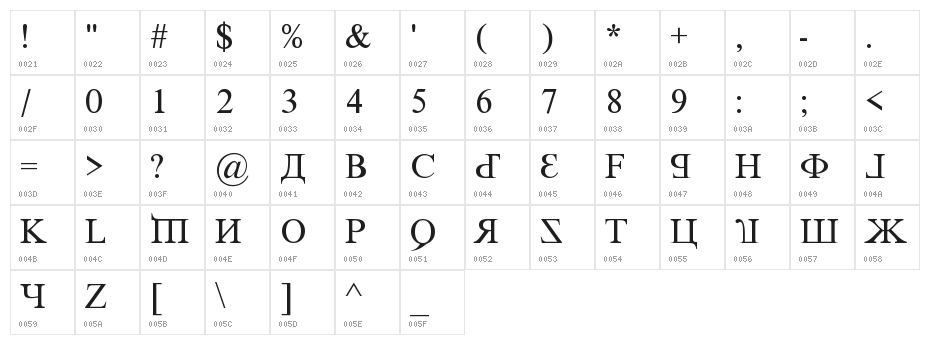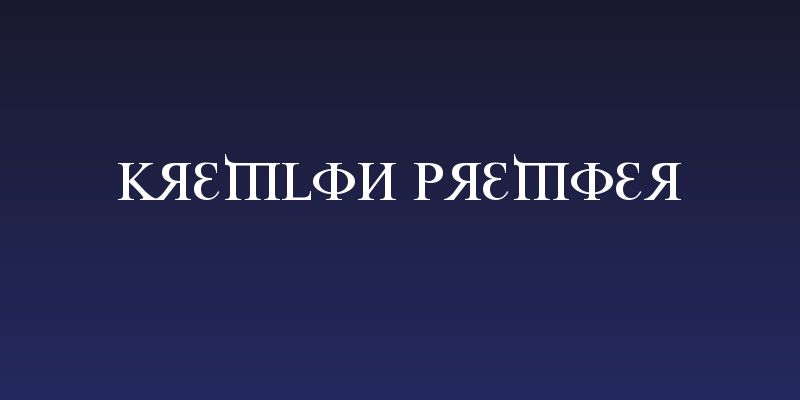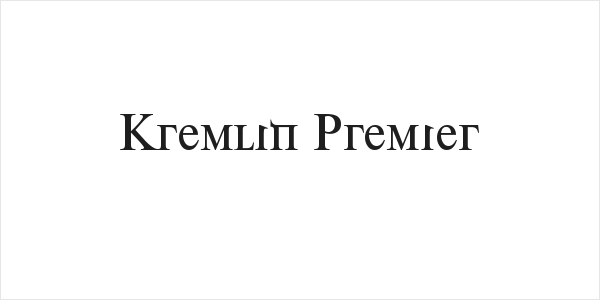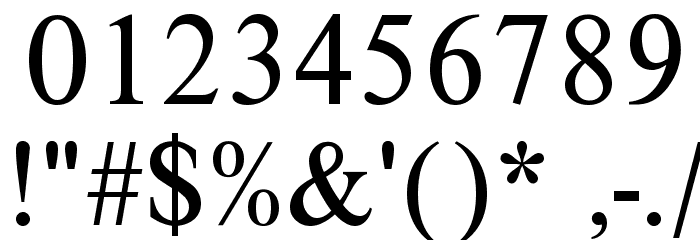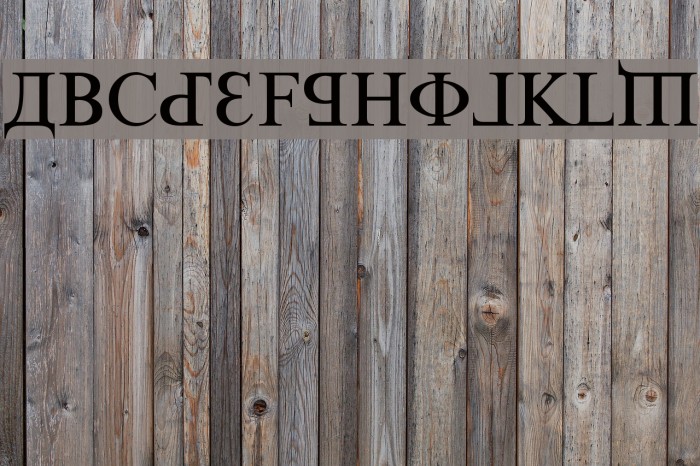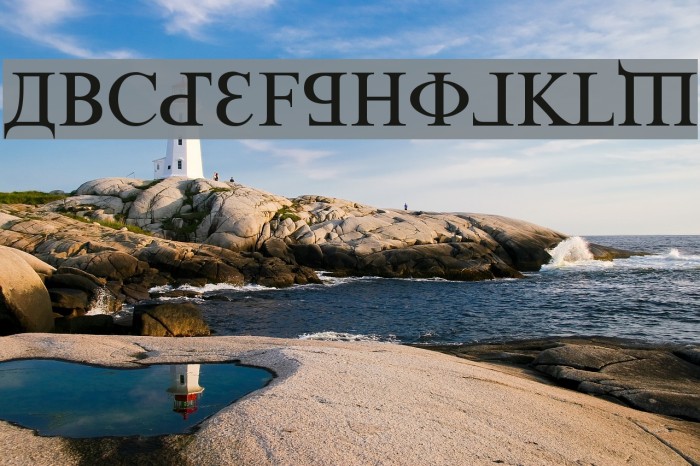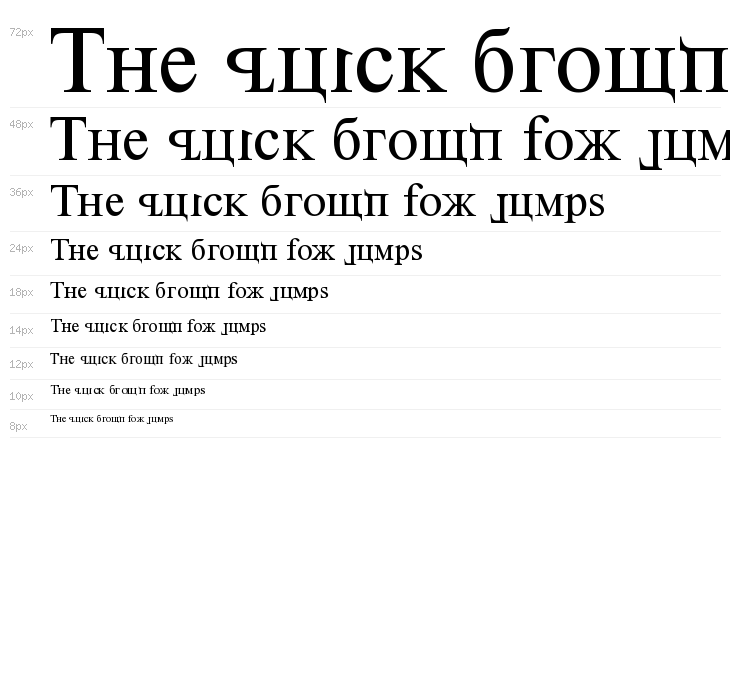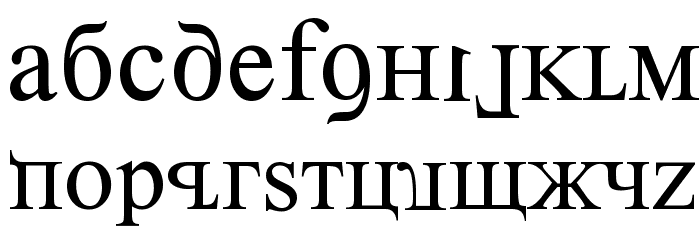
Kremlin Premier Font
Kremlin Premier Description
This font features a distinctive blend of traditional and modern elements, characterized by its sharp serifs and elegant curves. The uppercase letters exhibit a strong presence with their bold, angular lines, while the lowercase characters maintain a more refined and balanced appearance. The numerals are clear and legible, making them suitable for various applications. Special characters are thoughtfully designed to complement the overall aesthetic, ensuring consistency across all glyphs. The font's unique style makes it ideal for projects that require a touch of sophistication and historical flair.
| Overall Style | Classic |
| Use Case | Headlines, Logos, Editorial Design |
| Proposed Projects | Ideal for branding, editorial design, book covers, and any project requiring a sophisticated and historical touch. |